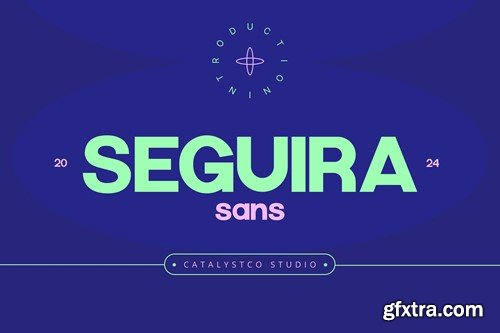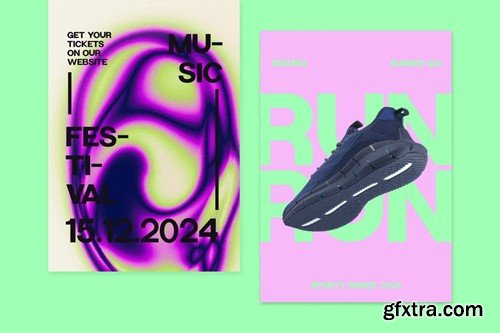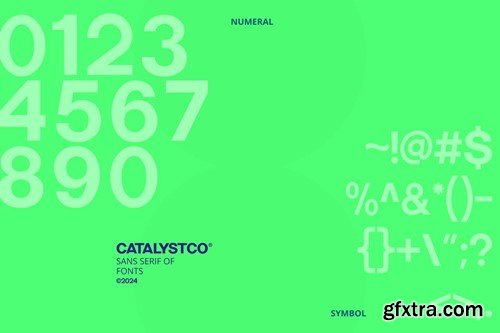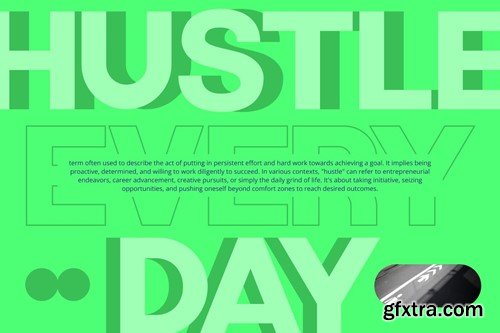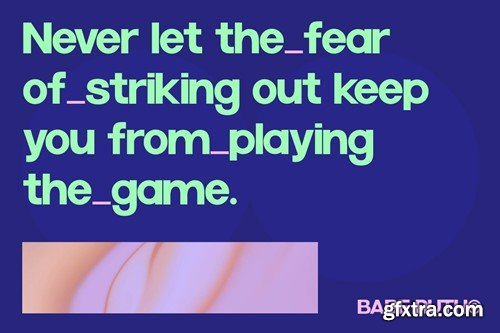
SeguiraSans Sans Serif Font
SeguiraSans Sans Serif Font typeface excellent used for the manufacture quote text, logotype, header magazine, and many more.
Main Features
• Uppercase & Lowercase
• Ligatures & Alternate